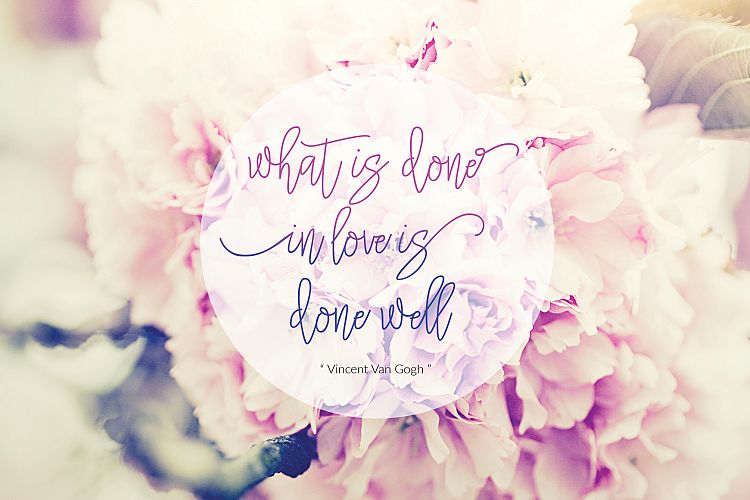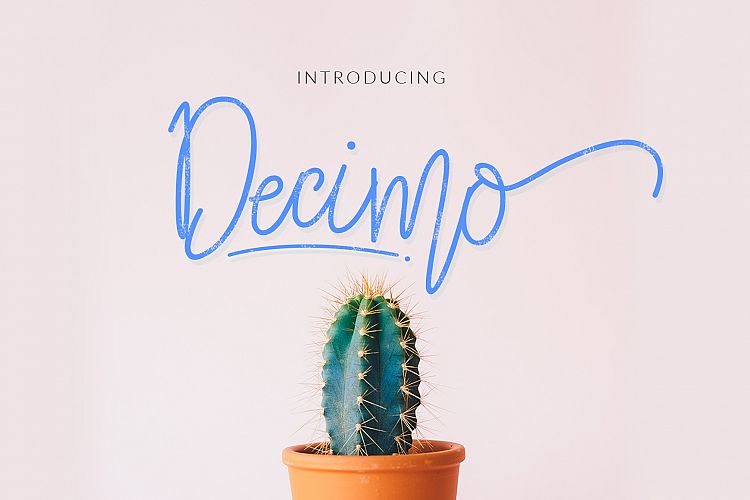
Decimo Script
Decimo Script Font
Decimo is modern monoline font, perfect for creating authentic hand-lettered text quickly & easily. With modern script style, strokes and an extra bouncy baseline, Decimo has an unmistakable charm,this font will perfect for many different project ex: for logos, headers, company or personal branding, product packaging, cards & handwritten quotes etc.